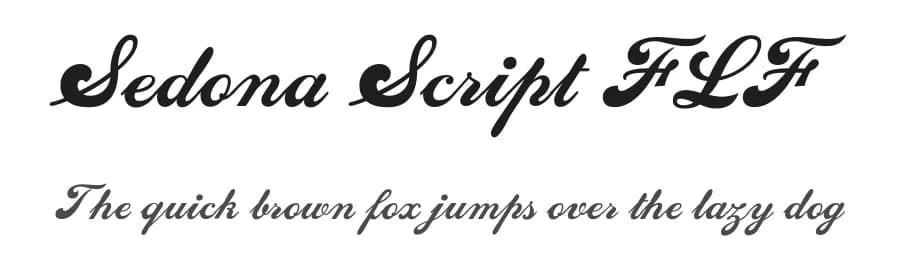
About Sedona Script FLF Font
Sedona Script FLF is a script & handwritten font designed by Casady & Greene. It includes 238 glyphs, a medium weight, TTF (TrueType) format, and 214 languages. Sedona Script FLF is free to download; check the license details on this page before commercial use. Script & handwritten fonts like Sedona Script FLF work best for wedding invitations, greeting cards, signatures, and elegant branding.
Sedona Script FLF Font is a script font that shines as a display or heading face. Pair it with a clean sans-serif or serif font for body text β the contrast creates a clear hierarchy while the two styles stay balanced and easy to read.
Sedona Script FLF Font
Sedona Script FLF Font is a script handwritten typeface by Casady & Greene, ideal for logos, invitations, branding, and creative projects.